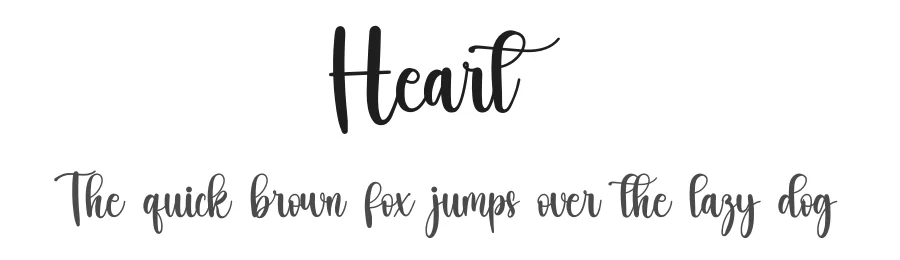
About Fallin Simple Font
Fallin Simple Specifications
Fallin Simple supports 198 languages.
Fallin Simple Font is a script font that shines as a display or heading face. Pair it with a clean sans-serif or serif font for body text β the contrast creates a clear hierarchy while the two styles stay balanced and easy to read.
Fallin Simple Font
by FreshtypeINK